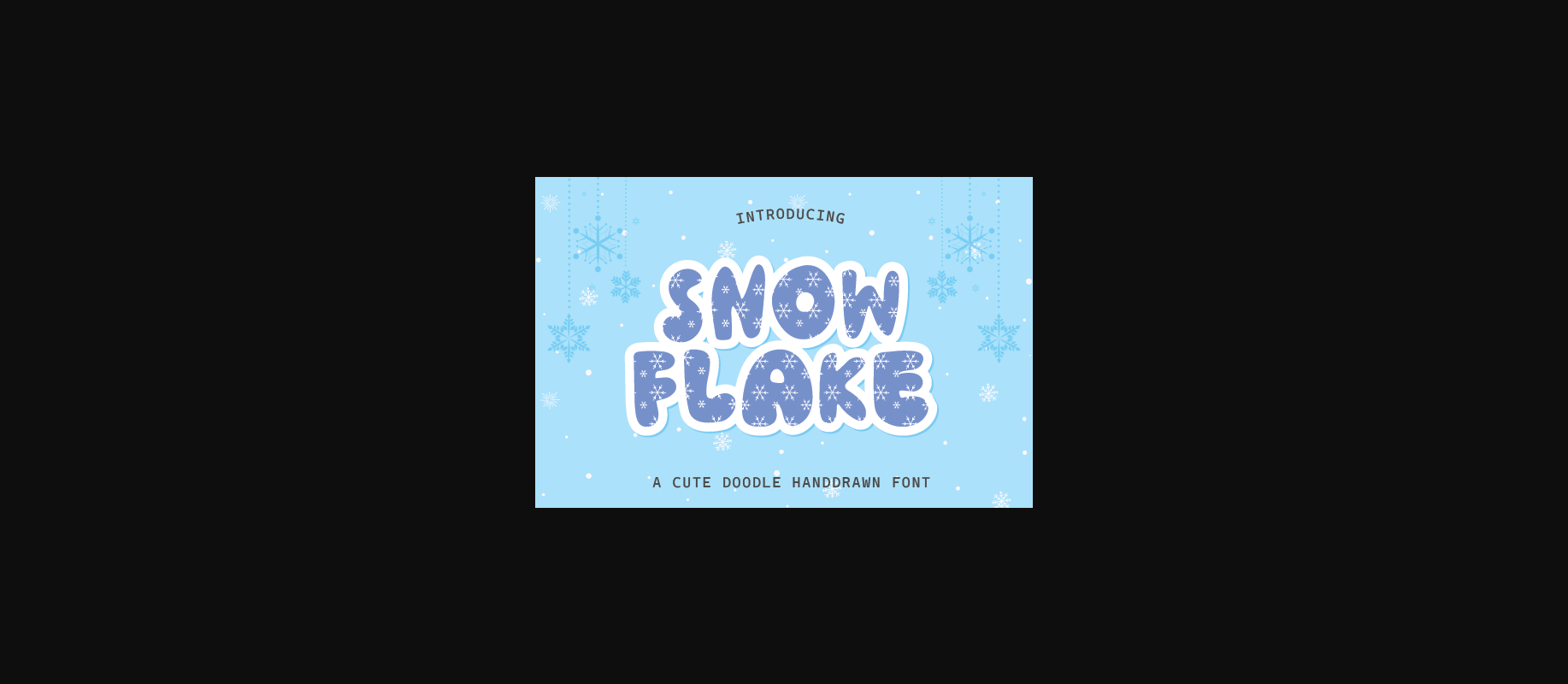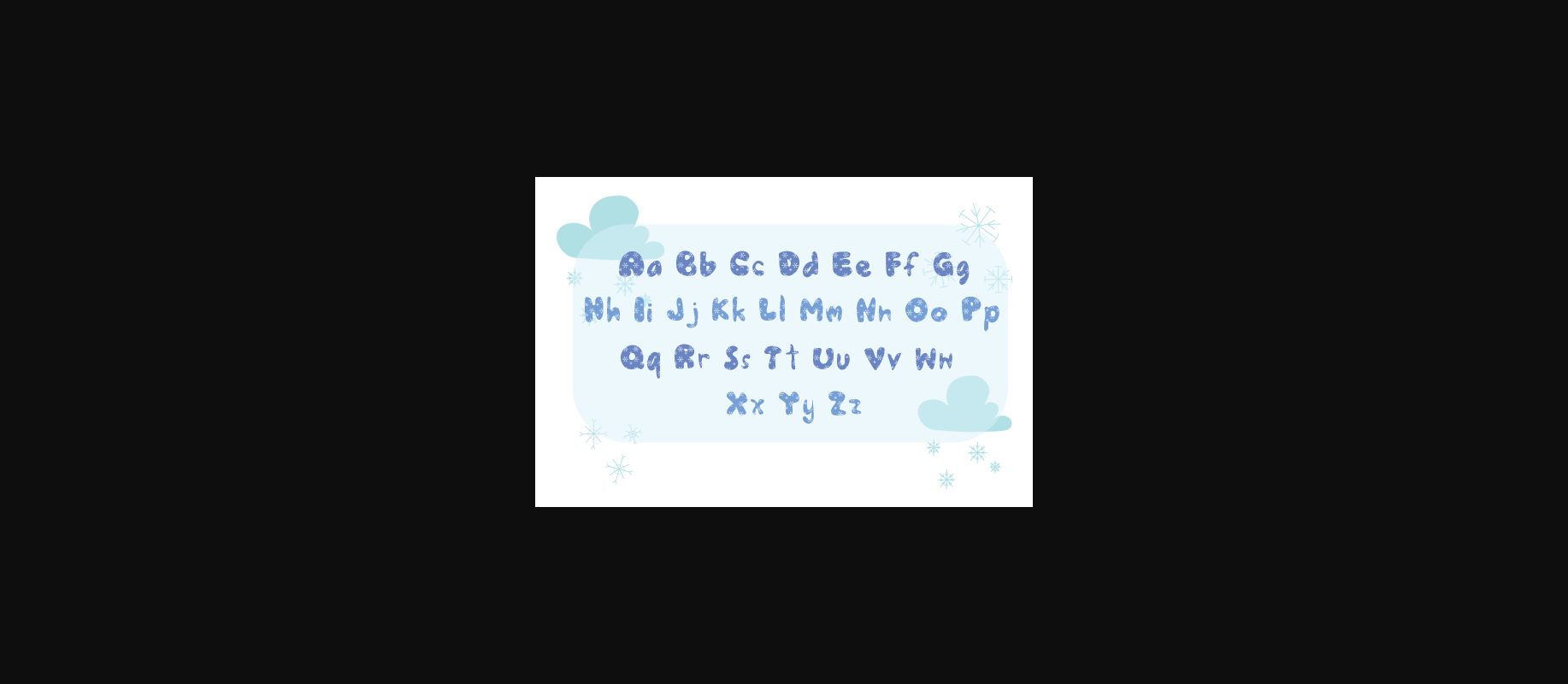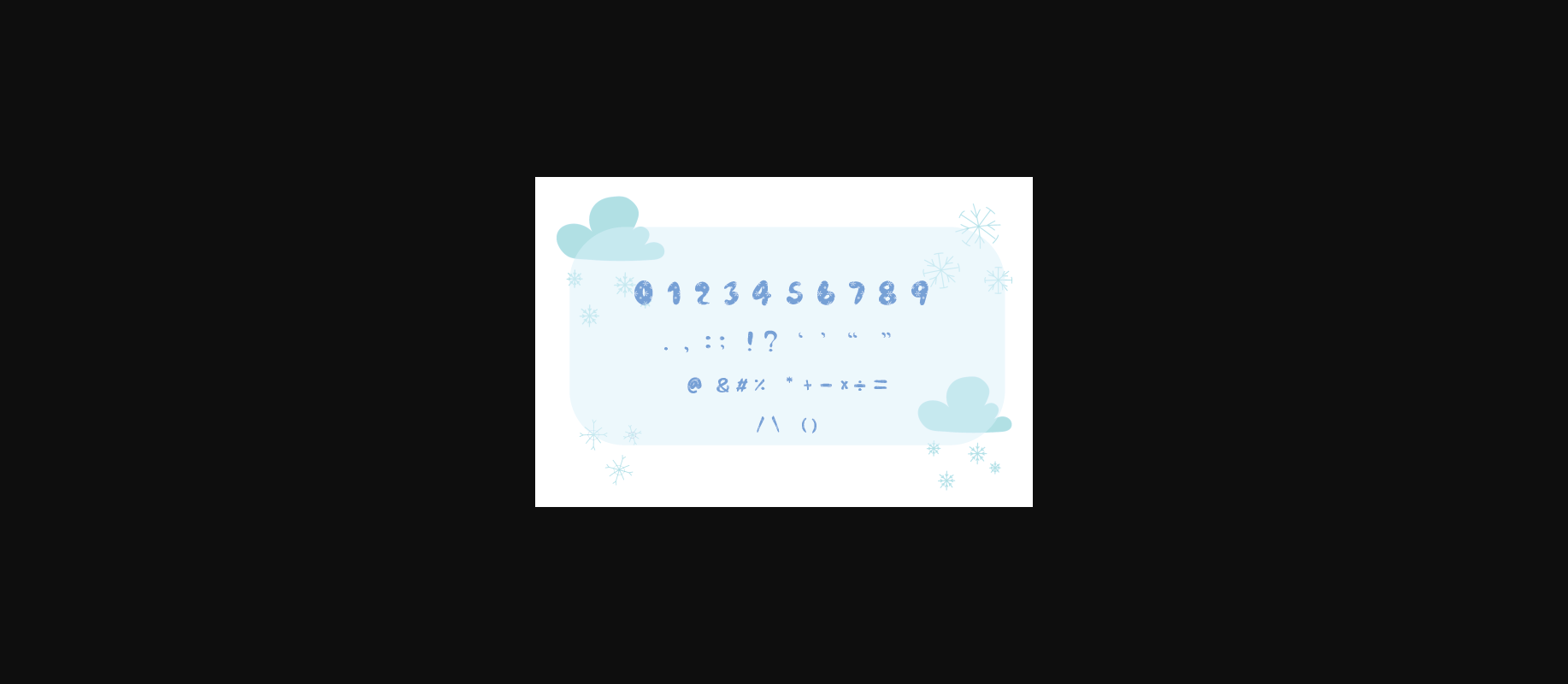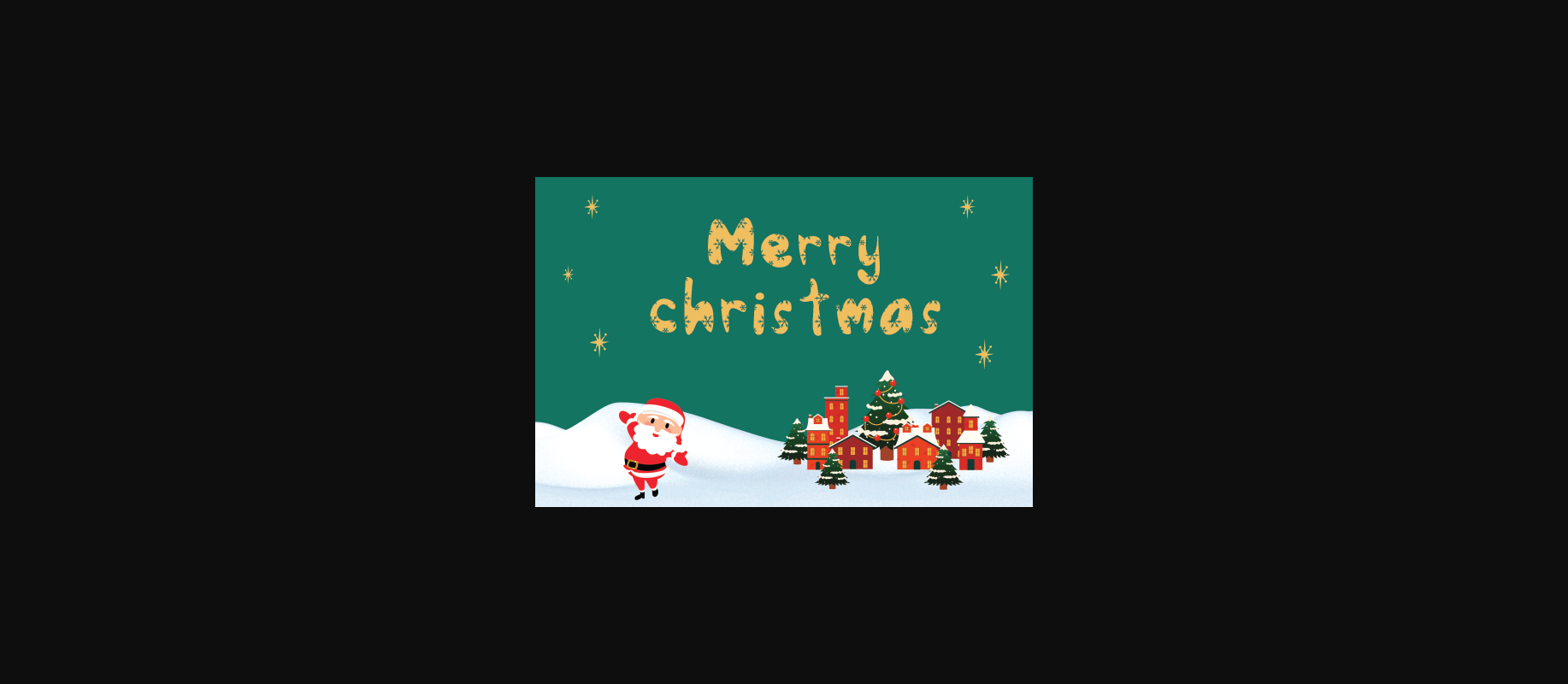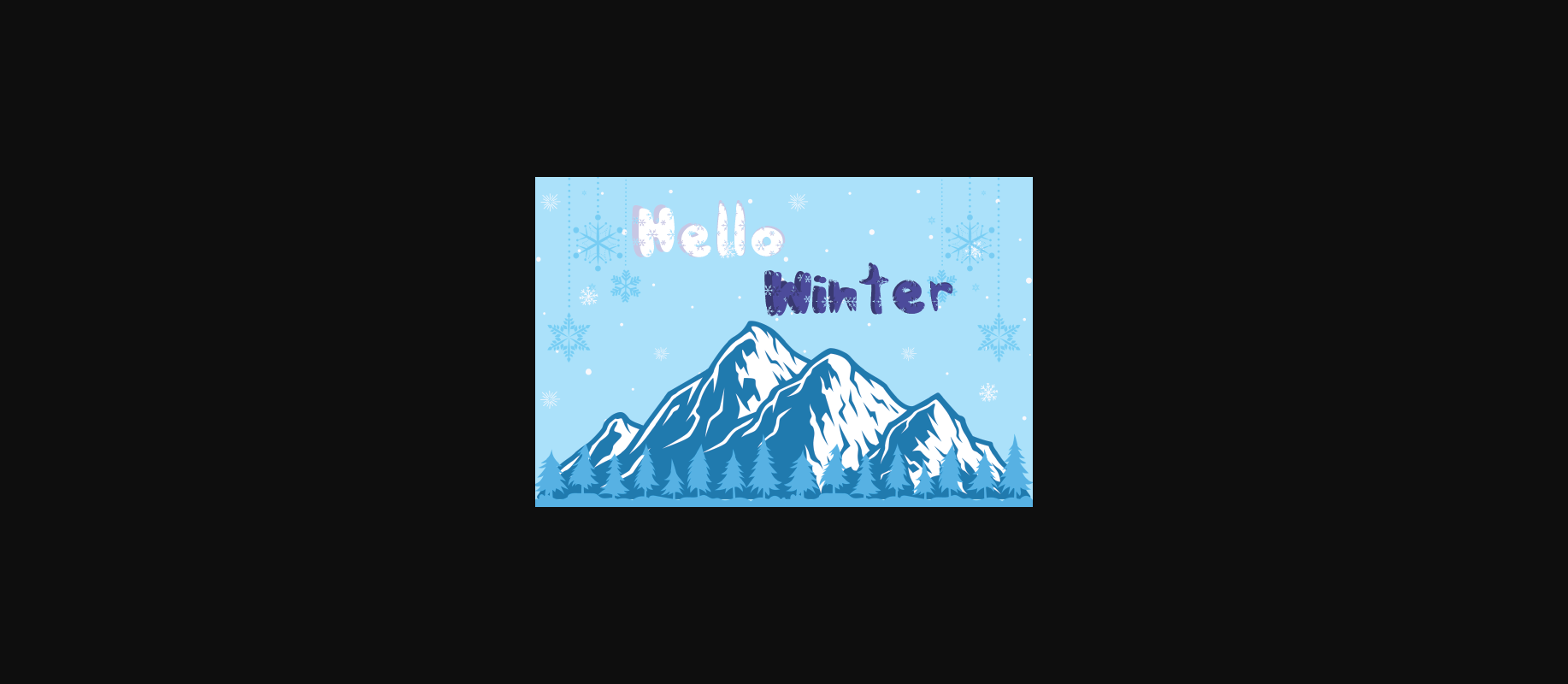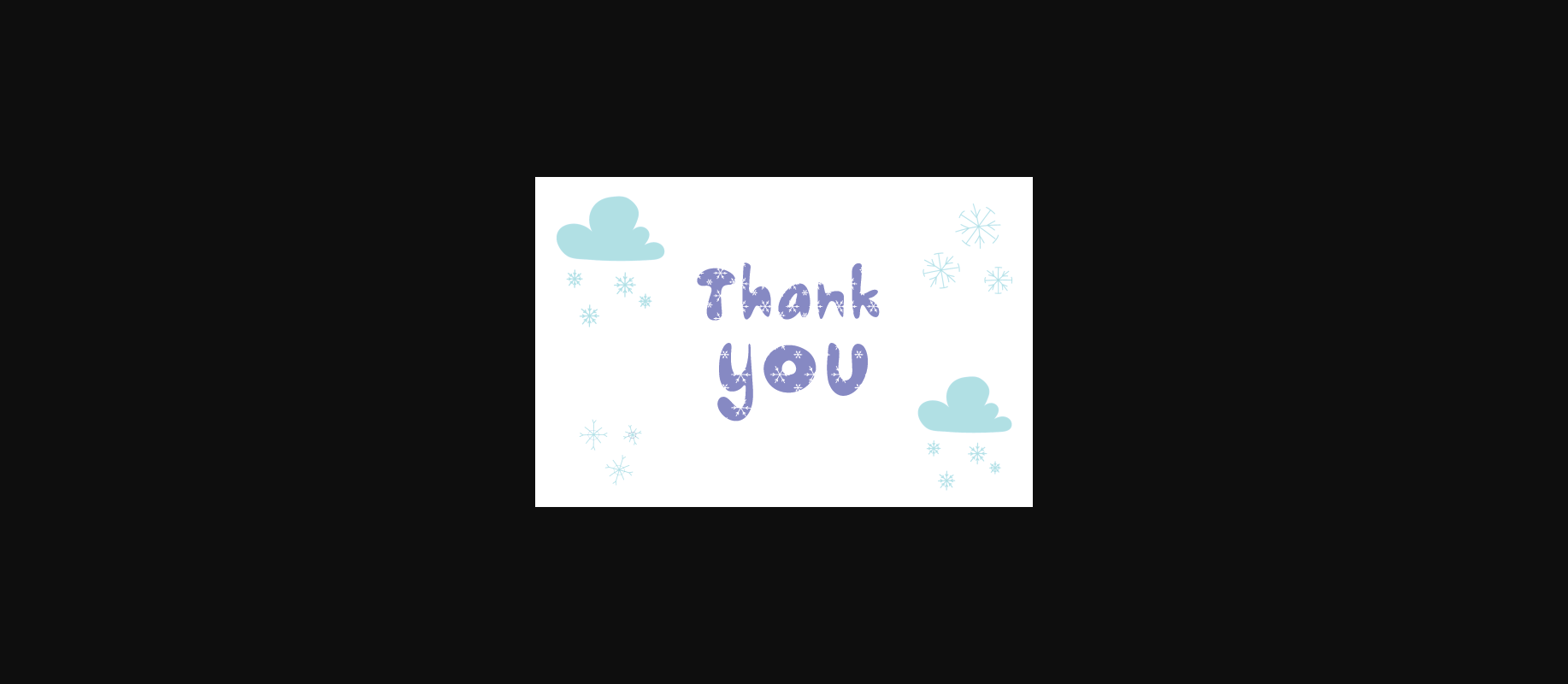
HomeDecorative FontsSnowflake Font Decorative Fonts Snowflake Font FacebookXPinterestWhatsApp 1 of 8 ... Snowflake Font Poster 2... Snowflake Font Poster 3... Snowflake Font Poster 4... Snowflake Font Poster 5... Snowflake Font Poster 6... Snowflake Font Poster 7... Snowflake Font Poster 8... About Snowflake Font Snowflake is a fun and quirky display font perfect for use on cheerful topics. Very suitable for children’s themed designs and holiday projects. DOWNLOAD NOW People also explored Beach Life Font Arsenio Script Font Las Vegas to Rome Spagbowl Font Luckiest Guy Pro Matcha Brownie Font Windmill Font Cassisfin Font Jacquelina Font 335 0 TagsSnowflake Font Previous articleChristmas Laurent FontNext articleFantasy Script 10 Font LEAVE A REPLY Cancel reply Comment: Please enter your comment! Name:* Please enter your name here Email:* You have entered an incorrect email address! Please enter your email address here Website: Save my name, email, and website in this browser for the next time I comment. Personal Use Free Sunbright Font Personal Use Free Read more about this font Lumber Personal Use Free Read more about this font BD Pipe Personal Use Free Read more about this font Straighler Personal Use Free Read more about this font BLOG Free Fonts Risk: Why Free Fonts Can Be Dangerous for Designers Free Fonts Risk: Why Free Fonts Can Be Dangerous for Designers Using free fonts is a common practice in web and graphic design. However, the... Elegant Wedding Invitation Fonts – Handwritten & Script Fonts Top 10 Handwritten Fonts That Elevate Your Designs Exploring Font Trends